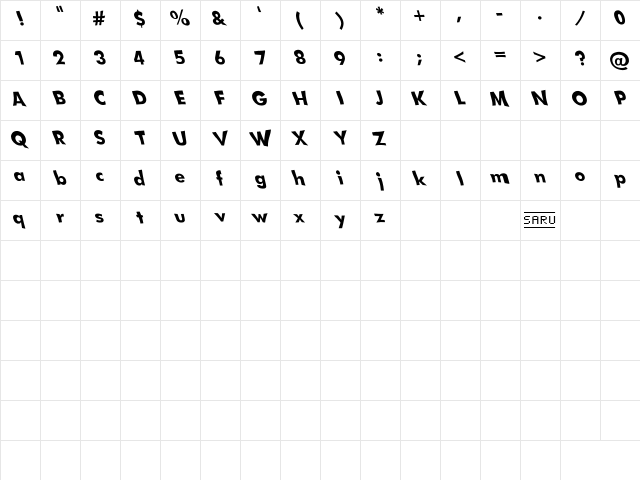
sparrow (sRB) Regular
sparrow (sRB) is a composed and adaptable typeface that performs quietly and consistently across a wide range of design contexts.